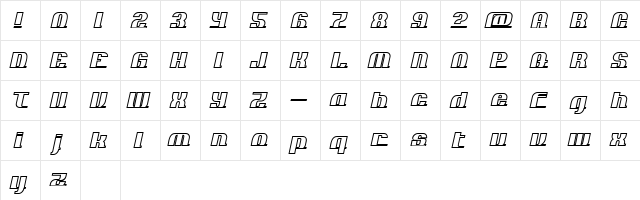
AddLoops Outline
| Style | Outline |
Design Context for AddLoops Typeface
AddLoops is built around its visual character rather than neutral utility — its distinctive forms are designed to make an impression at display sizes.
Font Pairing: Pair with a clean neutral sans-serif for body copy to let AddLoops's character lead without overwhelming the composition.
Pro Tip: Treat AddLoops as the centrepiece of your typographic hierarchy. One strong heading set in a decorative face can carry an entire layout.